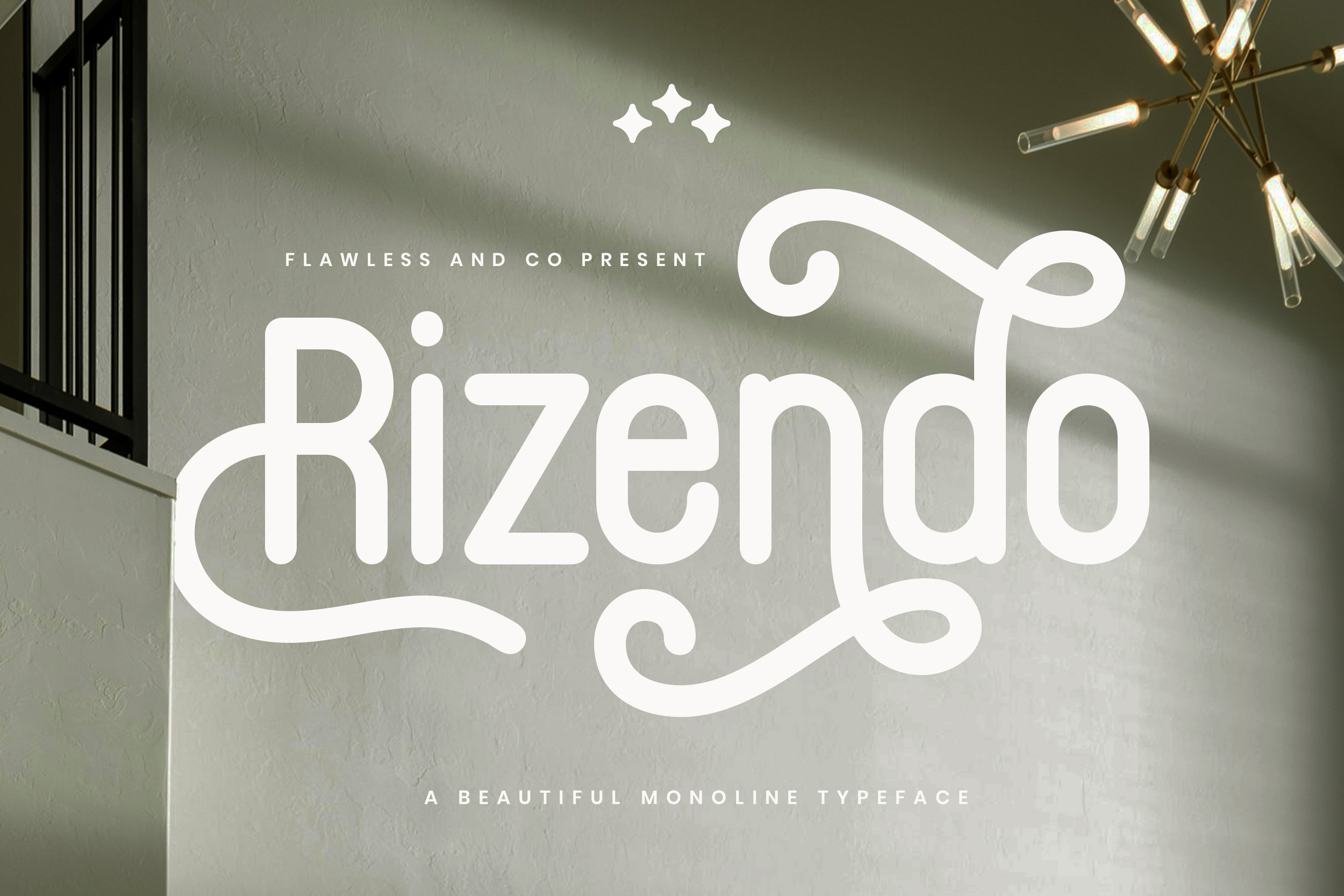
Rizendo - Monoline Font
RIZENDO – A Beautiful Monoline Sans Serif Font
RIZENDO is a charming and expressive monoline typeface designed to add character and elegance to your design work. With its rounded structure and flowing stylistic alternates, RIZENDO strikes the perfect balance between modern minimalism and handcrafted personality. Perfectly suited for branding, packaging, logos, lifestyle blogs, and stylish display compositions, RIZENDO brings a soft, welcoming feel that stands out in any creative project. Whether you're working on a trendy cafe brand or a warm organic product line, RIZENDO will give your design a distinctive, stylish edge.
Who Should Use Rizendo? Rizendo is made for creatives, designers, and brands who want to infuse their work with a clean, stylish, and handcrafted touch. Whether you’re building a personal brand or creating visual content that needs a modern monoline feel, Rizendo is a perfect fit.
This font is ideal for:
- Logo designers looking for an elegant, handcrafted monoline style
- Branding specialists working on lifestyle or fashion projects
- Social media creators wanting aesthetic and minimal typography
- Packaging and product label designers in need of a soft, curated look
- Creatives building wedding, stationery, or handmade craft visuals
A Must-Have Font for Brand, Logo, and Gaming Creators and Designers Rizendo is the perfect blend of modern monoline aesthetics and creative versatility — making it an essential tool for anyone building bold brands, stylish logos, or immersive gaming visuals.
Why Choose Rizendo for Brand and Logo Projects? Rizendo combines sleek monoline strokes with bold personality, making it an excellent choice for creative professionals looking to stand out. Whether you're crafting a dynamic brand identity, a stylish product label, or a modern gaming interface, Rizendo delivers clarity, character, and visual impact. Its clean curves and confident presence ensure your designs feel both timeless and distinctive.
Suitable For:
- Brand identities & modern logo design
- Tech and app-related branding
- Gaming titles and user interfaces
- Packaging and product labeling
- Social media graphics and content
- Editorial layouts and web headers
- Minimalist poster & display projects